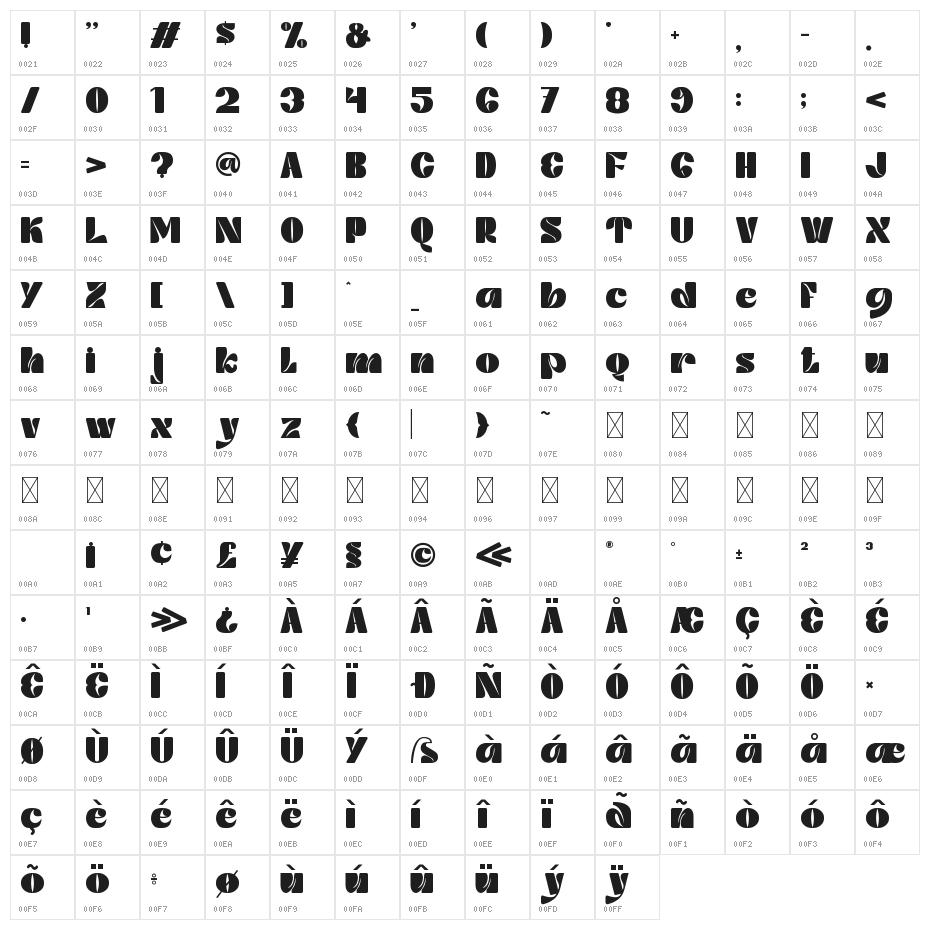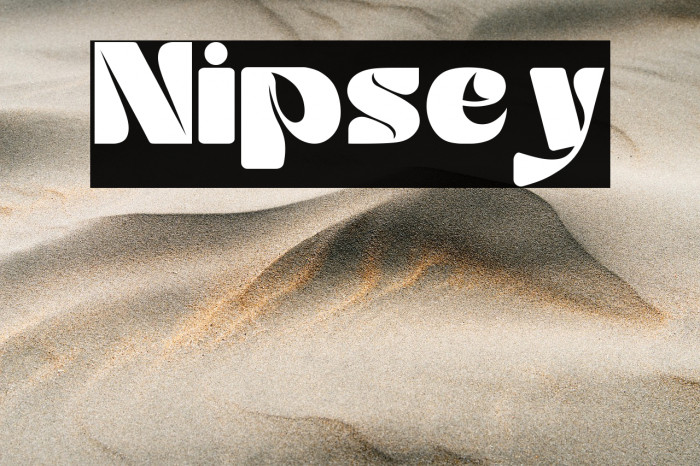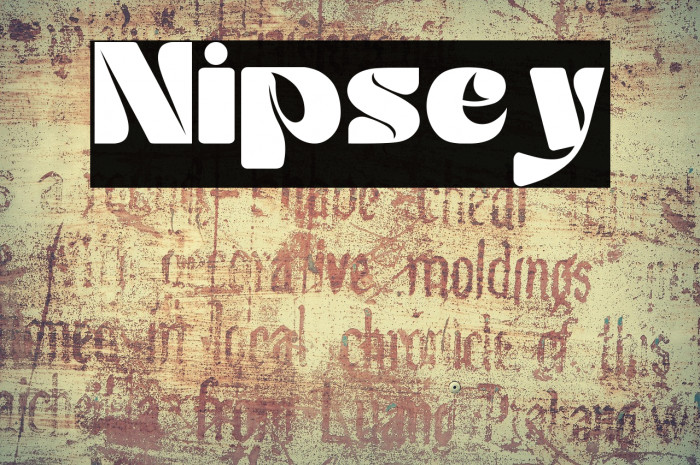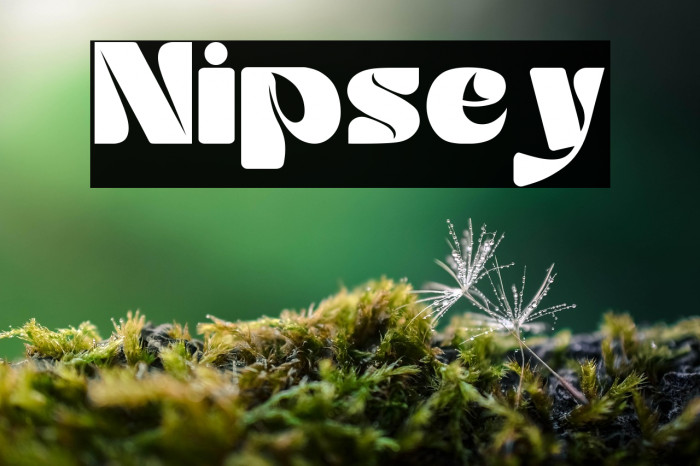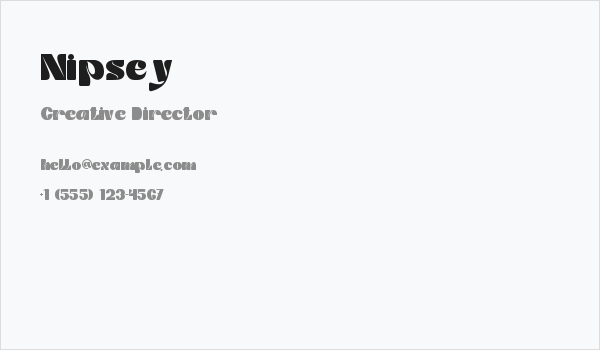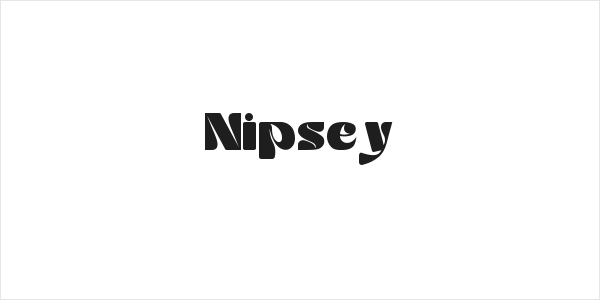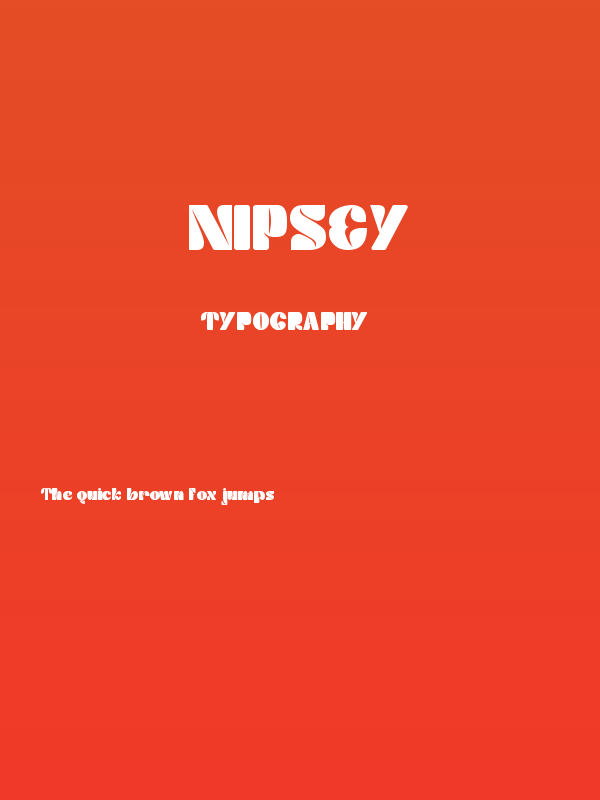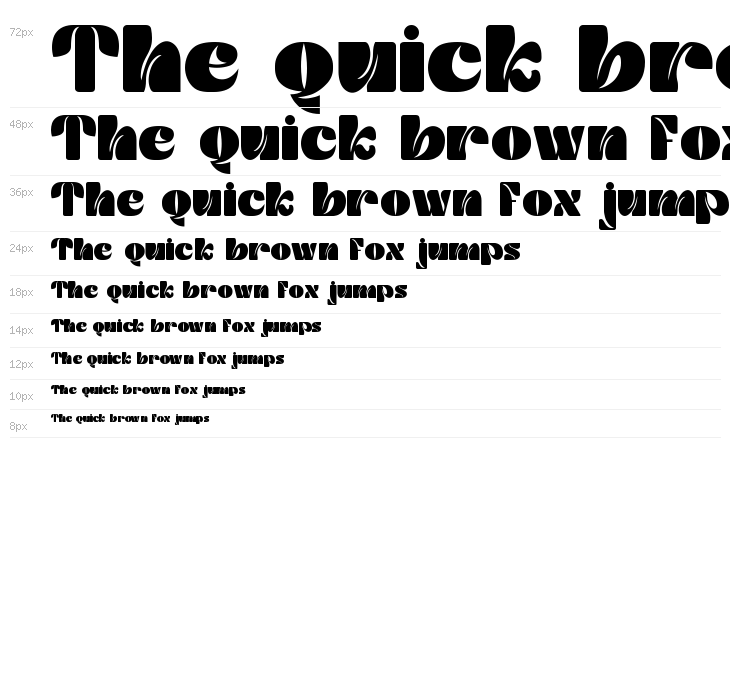
Nipsey Font
Nipsey Description
This font features a bold and striking design with a unique blend of geometric and organic shapes. The characters are heavily stylized, with thick strokes and sharp angles that create a sense of movement and energy. The uppercase and lowercase letters maintain a consistent style, with the lowercase having a slightly more playful appearance. Numbers and special characters are equally bold, ensuring a cohesive look across all text. The font's distinctiveness makes it stand out, making it suitable for attention-grabbing designs.
| Proposed Projects | Ideal for poster designs, branding, and headlines that require a bold statement. |